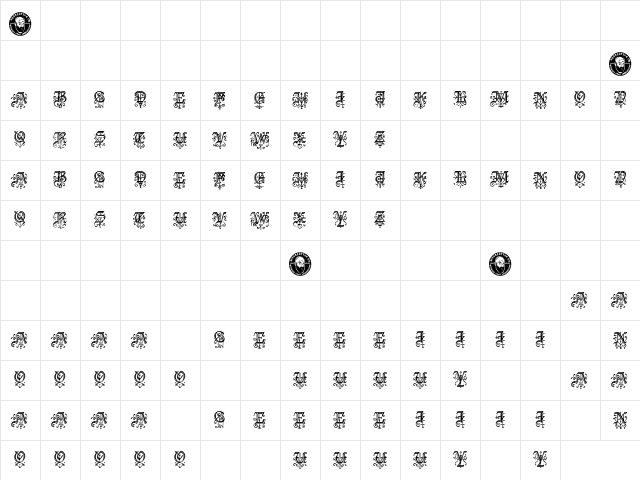
Imperator Regular
| Designer | Woodcutter Manero |
Design Context for Imperator Typeface
Imperator is a composed and adaptable typeface that performs quietly and consistently across a wide range of design contexts.